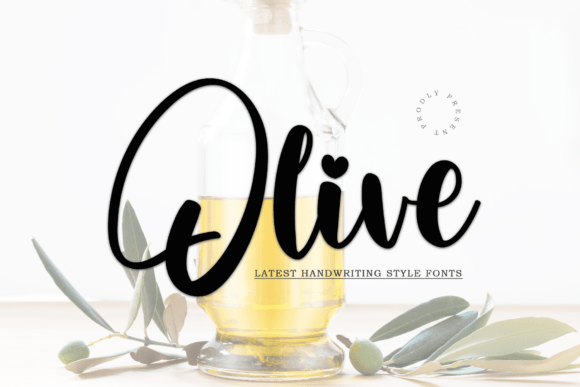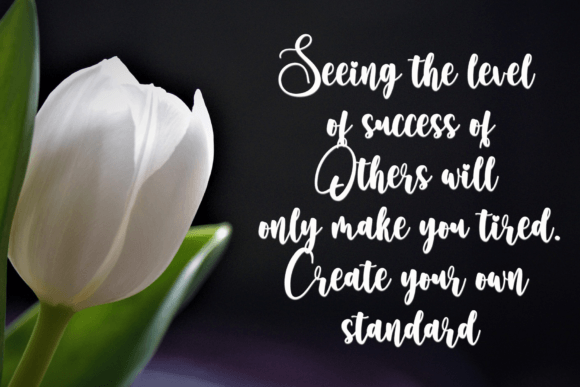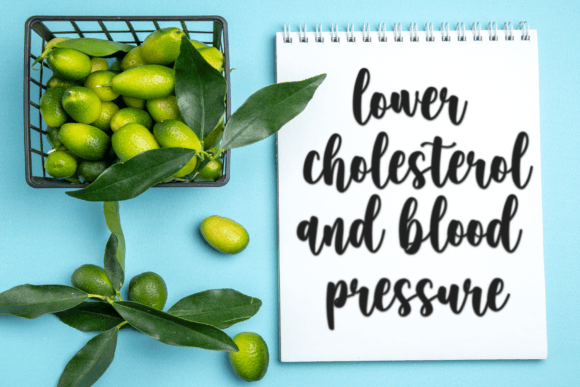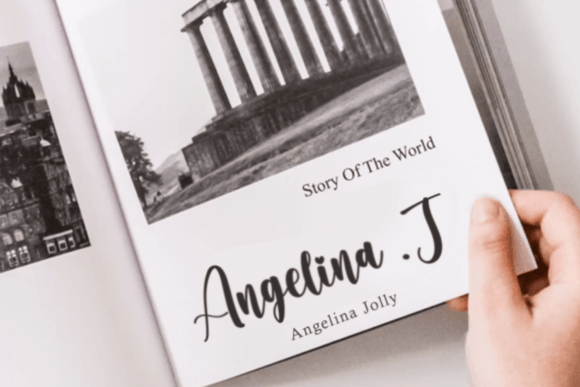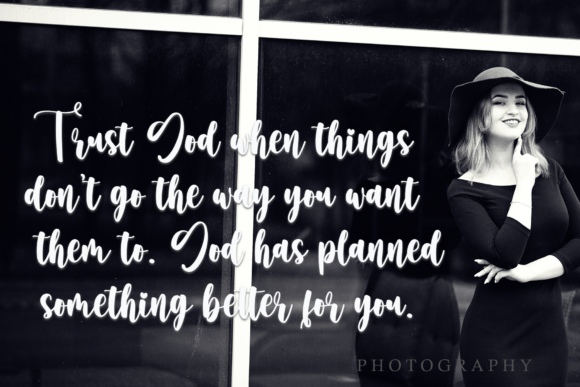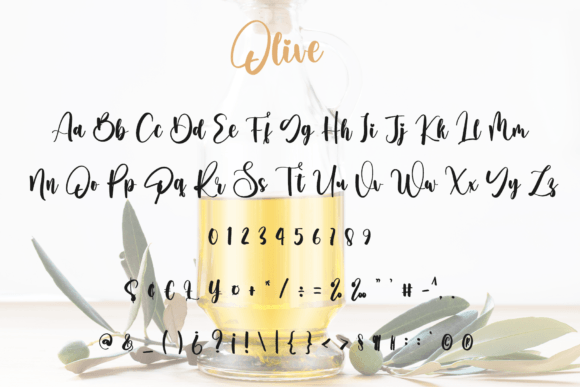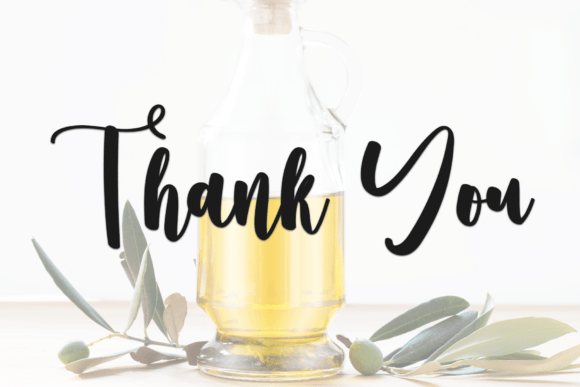
Olive Font
About Olive Font
“Olive” is an elegant handwritten font that effortlessly blends contemporary aesthetics with impeccable form, drawing inspiration from the timeless beauty of classic calligraphy. This font strikes a harmonious balance, offering a diverse and well-crafted design that is sure to enhance the visual appeal of your creative projects.
One of the standout features of “Olive” is its ability to capture the essence of classic calligraphy while infusing it with a modern twist. The font’s meticulously designed characters and clean lines pay homage to the elegance of traditional calligraphy, while its polished and contemporary appearance adds a fresh touch.
“Olive” boasts a well-balanced design that strikes the perfect middle ground—not overly thin or excessively thick. This equilibrium ensures that “Olive” is a versatile choice suitable for a wide range of design applications. Whether you’re working on print materials, digital graphics, websites, or any other creative endeavor, “Olive” adapts seamlessly to your needs.
The meticulous craftsmanship and impeccable execution of “Olive” make it a perfect choice for projects where aesthetics and visual impact are paramount. It excels in crafting elegant invitations, creating logos that exude sophistication, or simply enhancing the overall visual appeal of your content.
Furthermore, “Olive” is more than just a font; it’s a design asset that exudes character and charm. Its handwritten appearance adds a personal and authentic touch to your projects, making them feel warm and inviting. It’s an excellent choice when you want to infuse a sense of style and approachability into your work.
In conclusion, “Olive” is a remarkable handwritten font that seamlessly marries classic calligraphy with contemporary design, making it a versatile and elegant choice for your creative projects. Its ability to strike a perfect balance between tradition and modernity, its adaptability to various design contexts, and its capacity to infuse a personal touch into your designs make it a valuable addition to your font collection. Embrace the elegance and versatility of “Olive” in your next project, and watch as it enhances the beauty and sophistication of your creations.